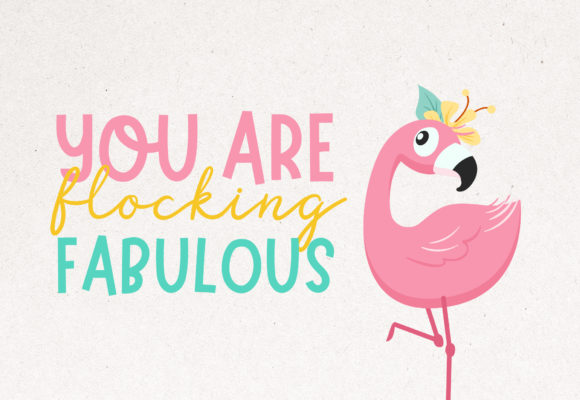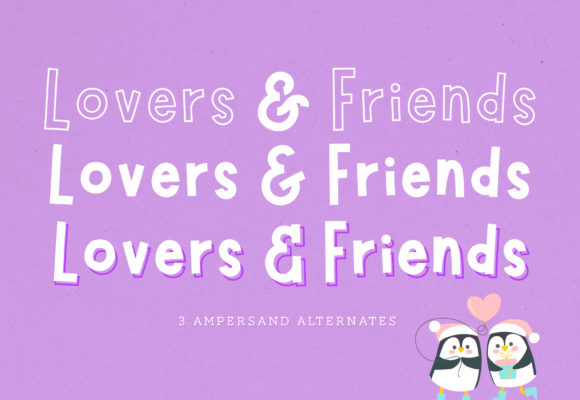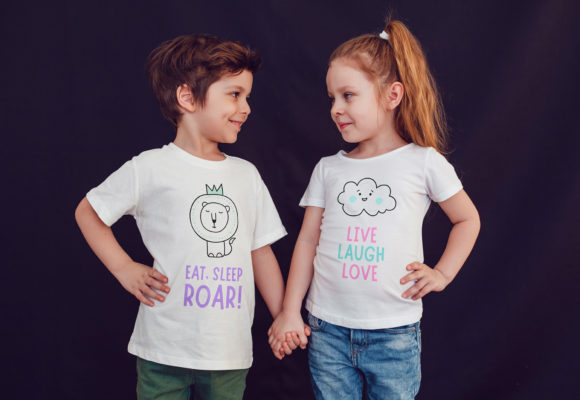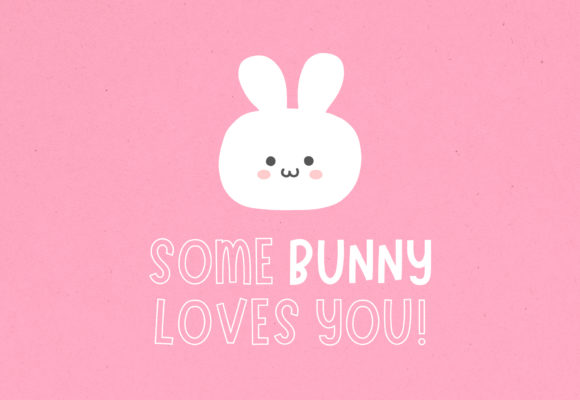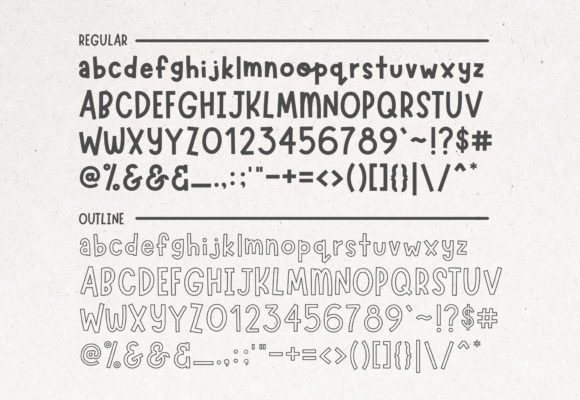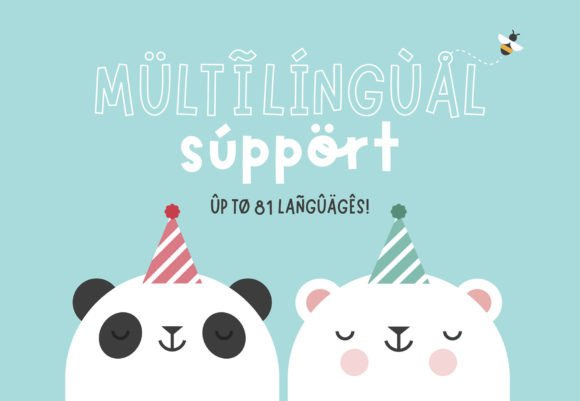
Introduction to Marykate Font
The Marykate is a playful yet versatile font duo.
It comes with a set of solid and outline font files, perfect for any design & craft project Ideal for quotes, home decor, wedding invites, blog header, branding, t-shirts, posters & more.